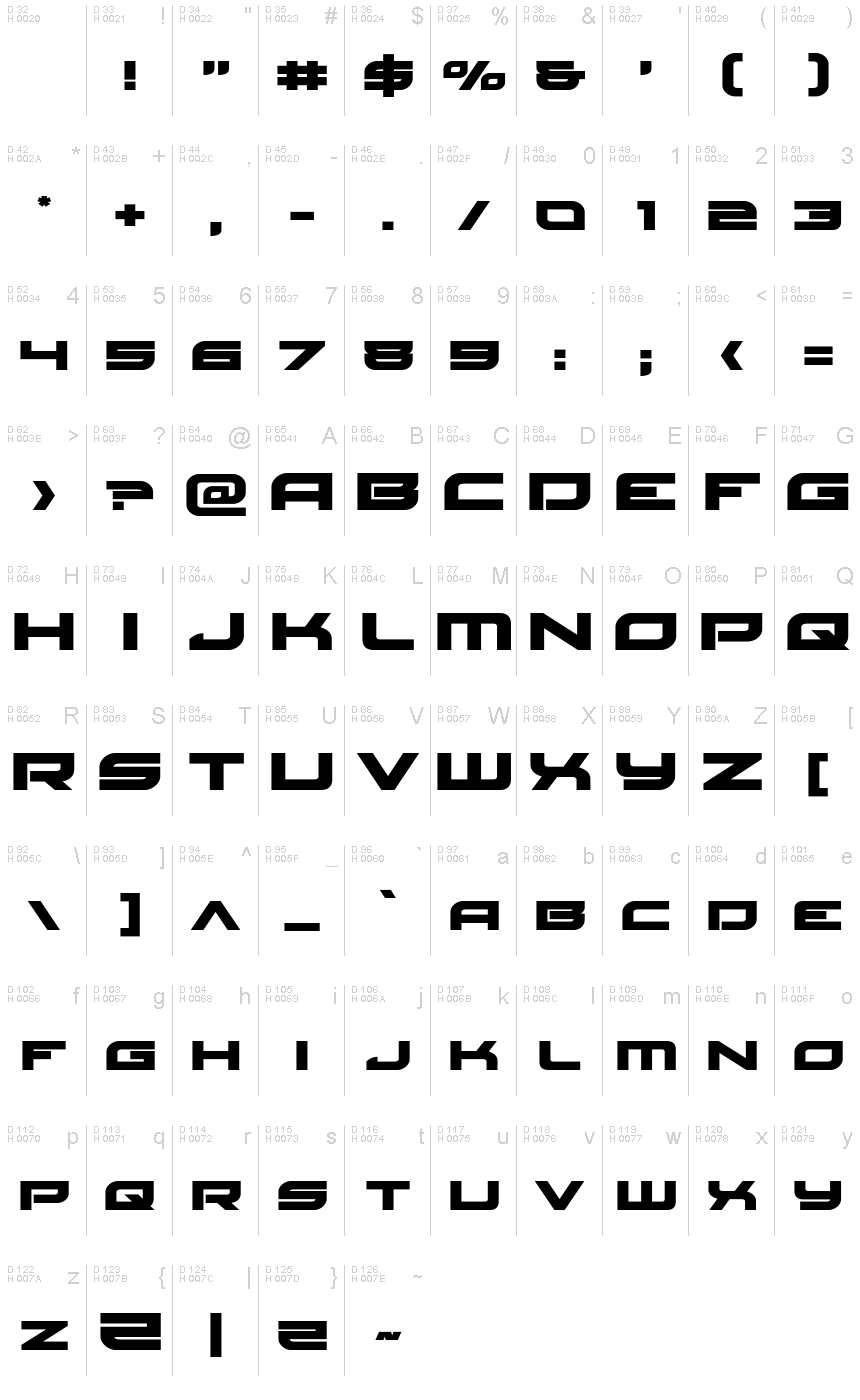
Red Rocket Expanded by Daniel Zadorozny of Iconian Fonts is a free futuristic display font with an exceptionally wide stance. Broad geometric letters combine rounded corners with sharp horizontal cuts. Repeated slots and open sections give the lettering the streamlined look of vehicle graphics and science fiction interfaces.
Designers working in gaming, motorsport, or technology branding will find its low, fast silhouette especially useful. It suits racing merchandise, arcade graphics, and event posters because each application can draw on the same mechanical shapes and forward-moving profile.
Red Rocket Expanded